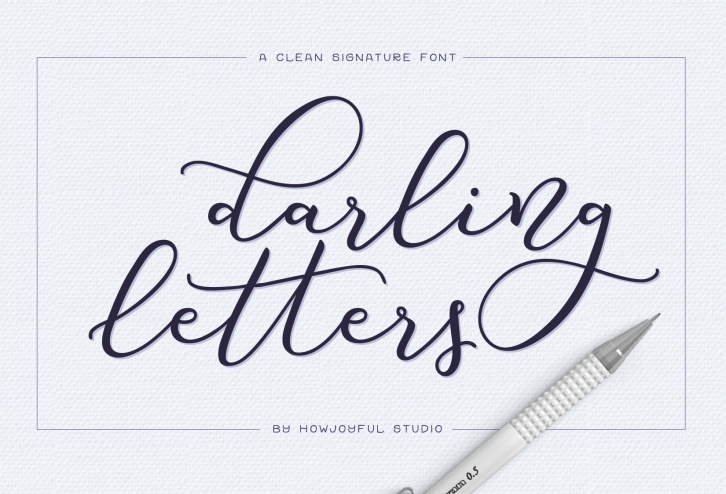
Darling letters is a clean hand-lettered font, perfect for logos invitations, social media or any project that needs a little charm. It features a modern calligraphy style with a bouncy baseline. I've added some dramatic alternates with big loops to give your pieces a more natural lettered look, so it can look less like a font and more like regular hand-lettering.